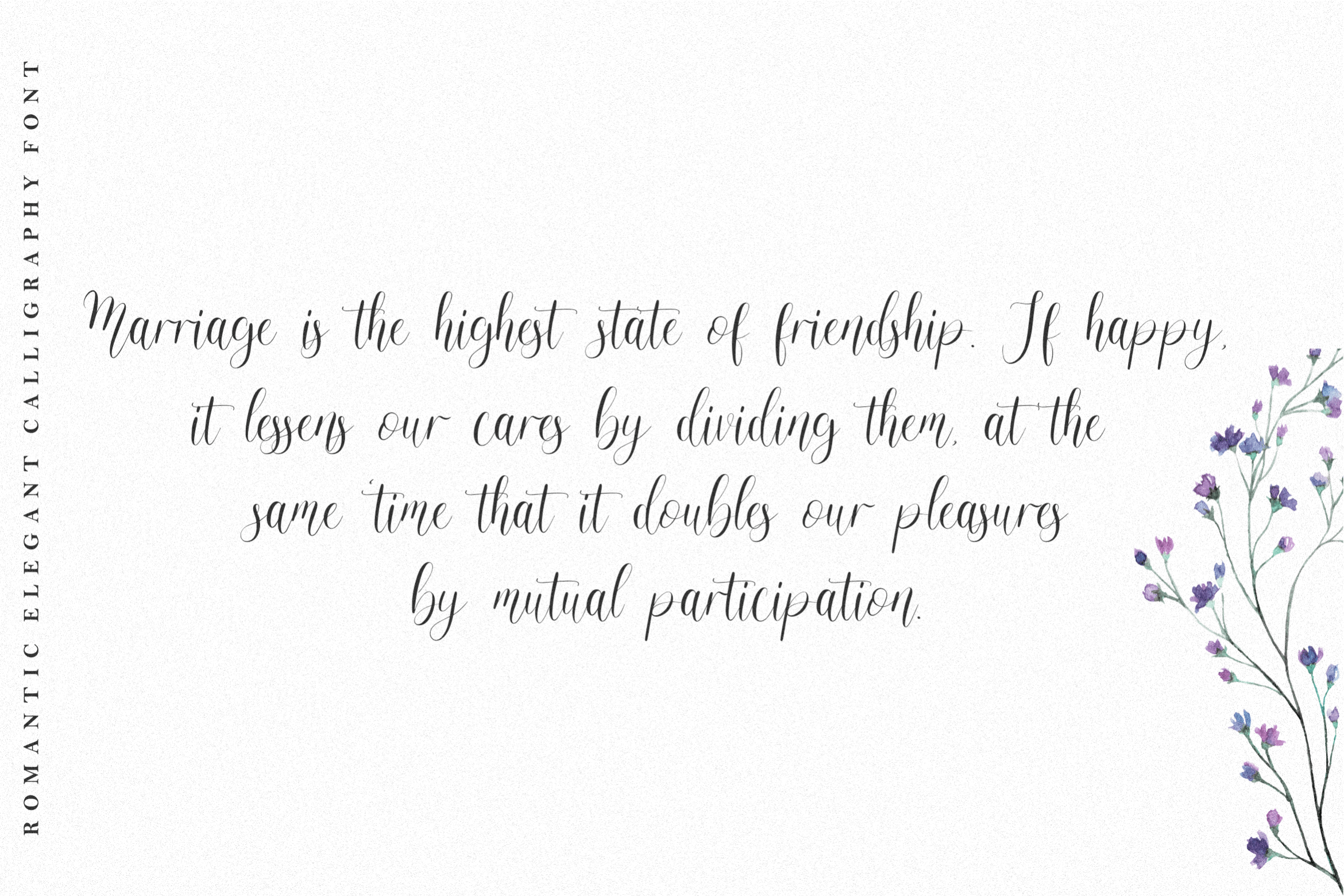
Abiallyne Font
Abiallyne Script Font
This is an elegant and flowing handwritten font. It is PUA encoded which means you can access all of the glyphs and swashes with ease! It maintains its classy calligraphic influences while feeling contemporary and fresh.
qwrtype